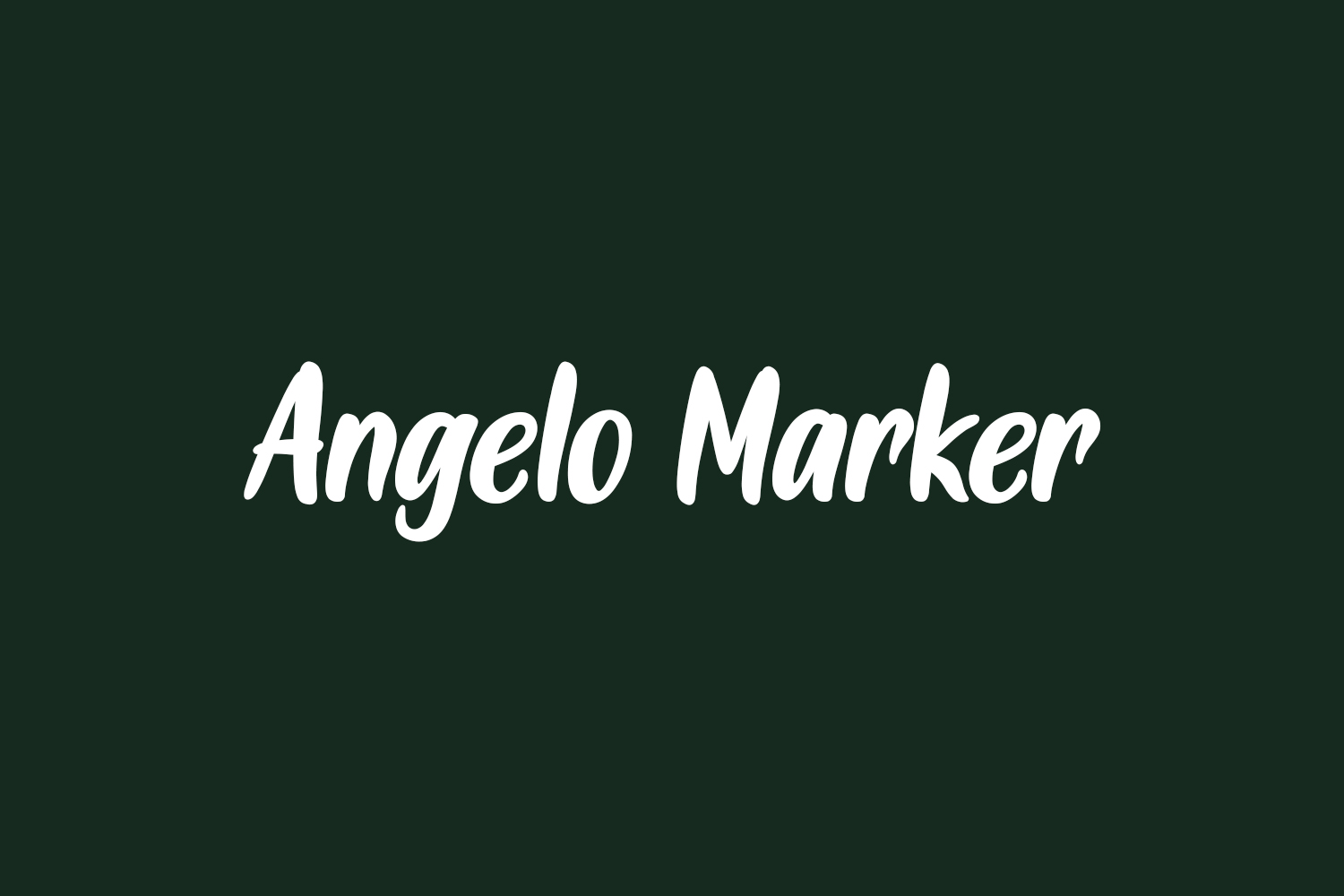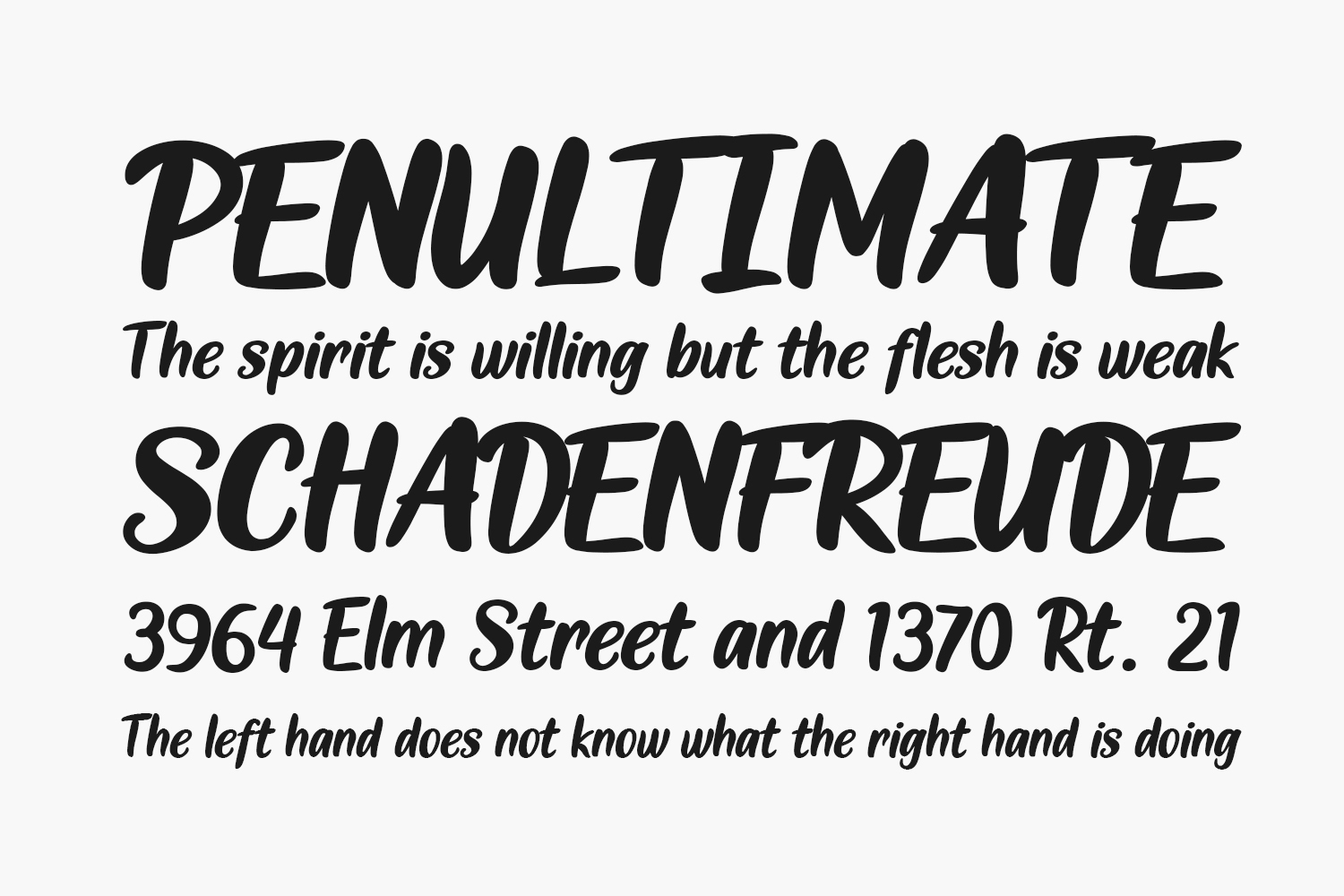
Angelo Marker Free Font is a cool and neat lettered paint brushed handwritten font. No matter the topic, this font will be an incredible asset to your fonts’ library, as it has the potential to elevate any creation. Angelo Marker Free Font was designed by Kurnia Setyadi and is free for personal use only. Please purchase the full version for commercial use.
Designed by Kurnia Setyadi